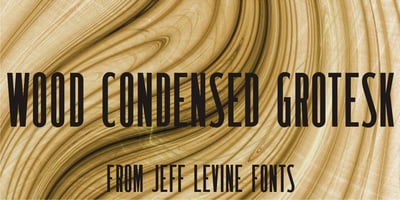
Wood Condensed Grotesk JNL Font Family was designed by Jeff Levine and published by Jeff Levine. Wood Condensed Grotesk JNL contains 1 styles and family package options. Wood Condensed Grotesk JNL is a more condensed version of the type style found in Wood Type Grotesk JNL. The font was a popular sans used for large posters or broadsheets as well as newspaper titles where more copy needed to be fit into limited space.